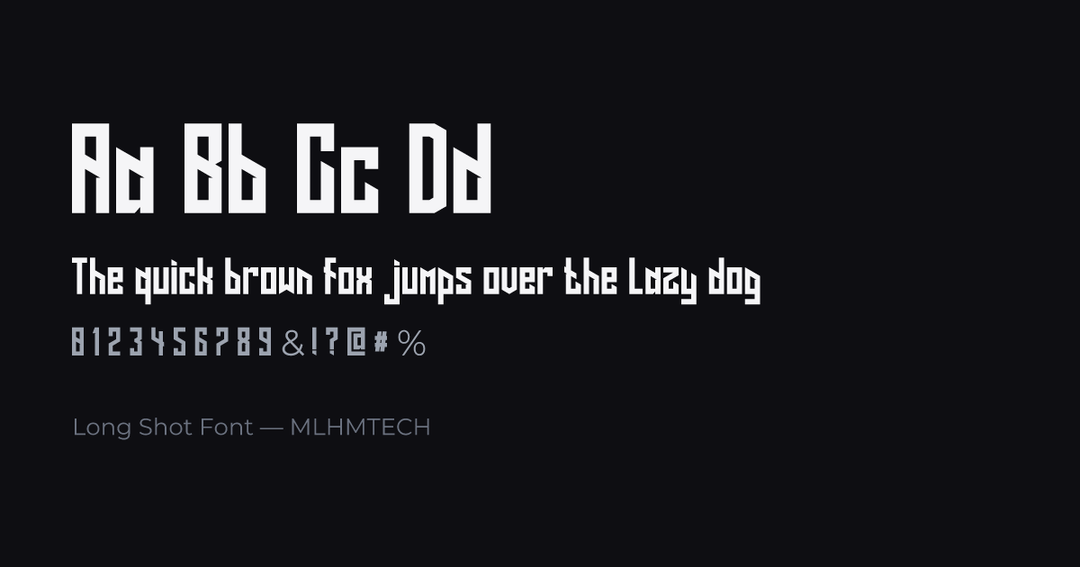
Long Shot Font
Long Shot is a versatile font from our handpicked collection, ideal for adding a unique touch to your video and design projects.
Long Shot is a distinctive typeface that brings character to any project. Whether you're working on a video title, logo, or poster, this font offers a unique style that stands out.
Included in our handpicked fonts collection, Long Shot is ready to use in your favorite design software. Its clean lines and balanced proportions make it suitable for both digital and print media.